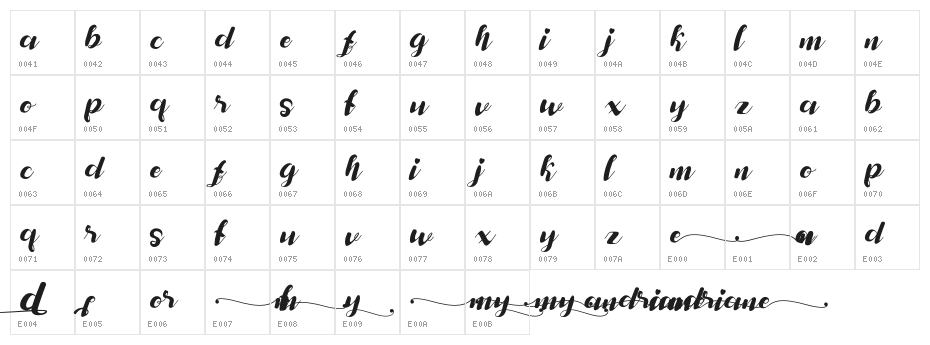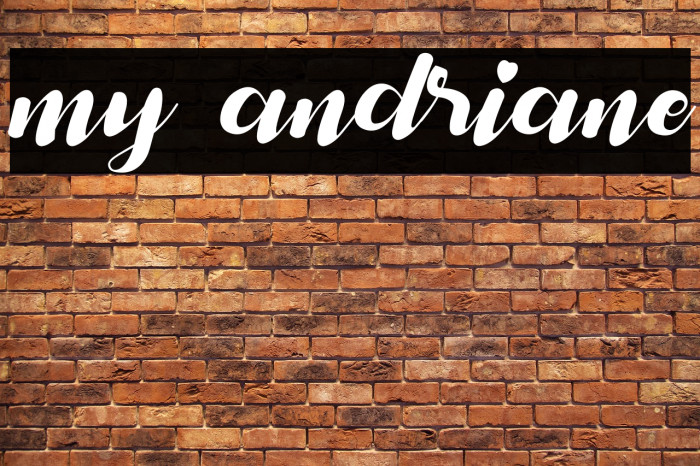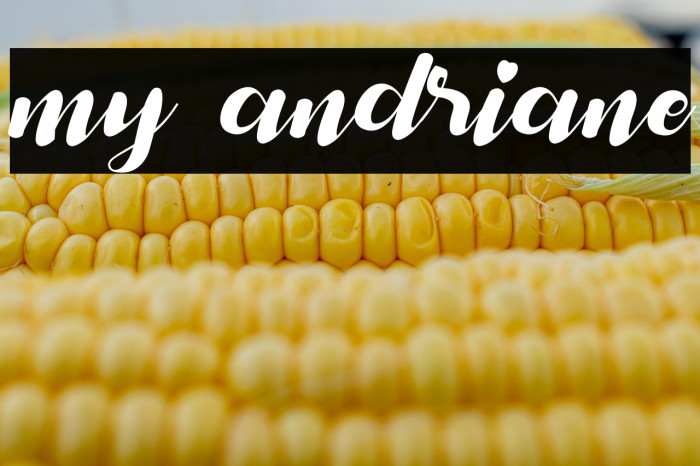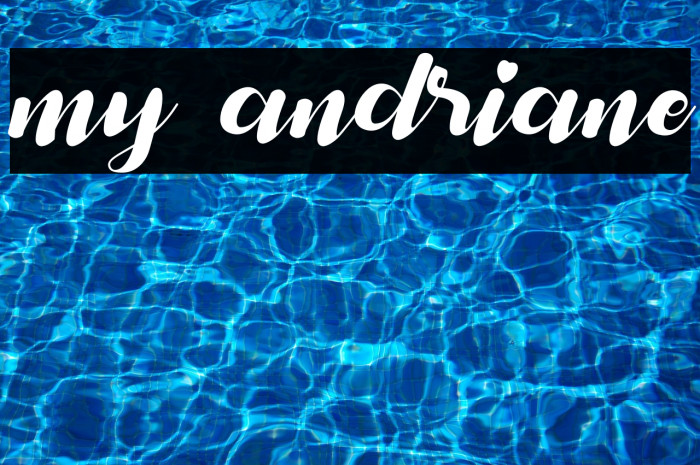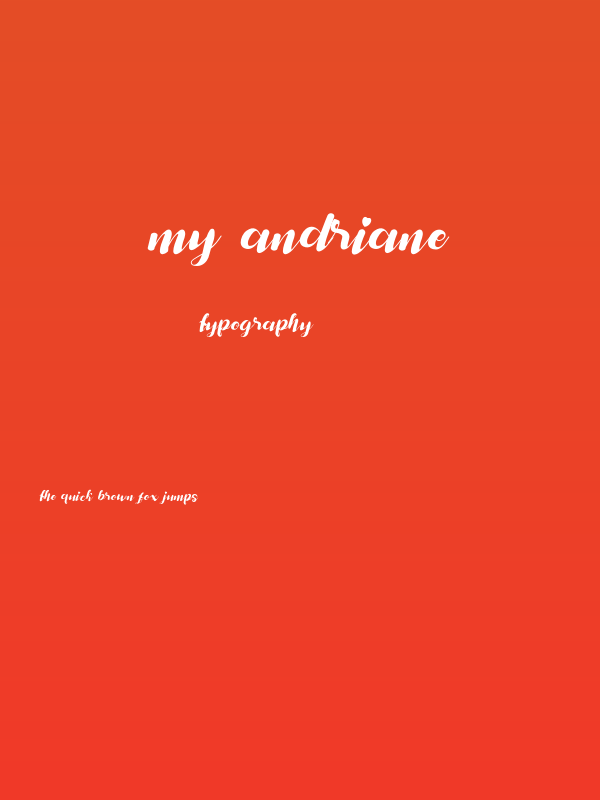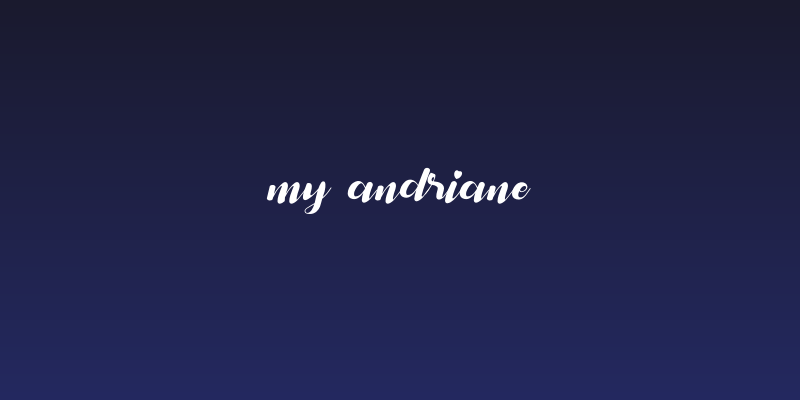
my andriane Font
my andriane Description
This font features a bold, cursive script style with elegant, flowing lines and a strong presence. The characters are interconnected, creating a seamless and fluid appearance. The strokes are thick and consistent, providing a sense of confidence and sophistication. The font exudes a modern yet classic feel, making it versatile for various design applications. Its decorative nature is enhanced by the smooth curves and loops, which add a touch of elegance and charm. The font is well-suited for projects that require a personal, handwritten touch, while still maintaining a professional and polished look.
| Overall Style | Modern, Classic |
| Proposed Projects | Ideal for wedding invitations, branding, logo design, and elegant stationery. |